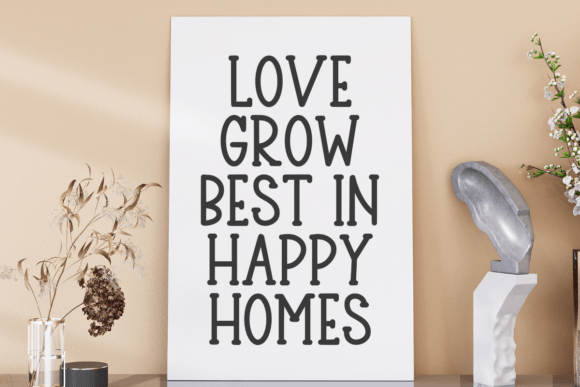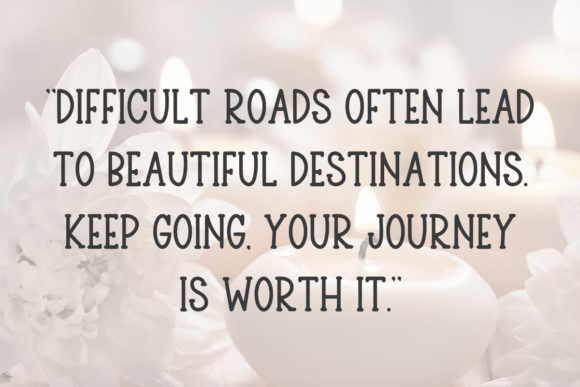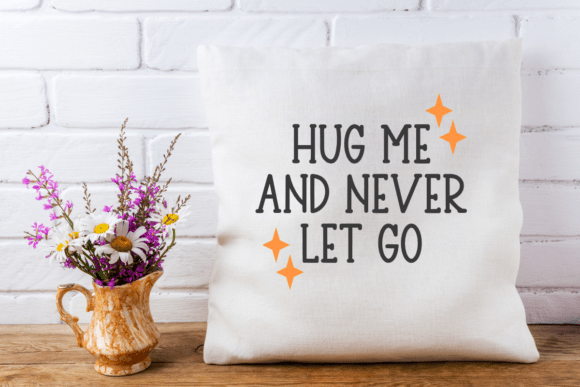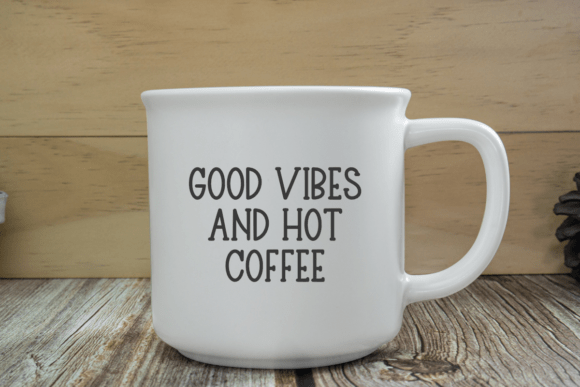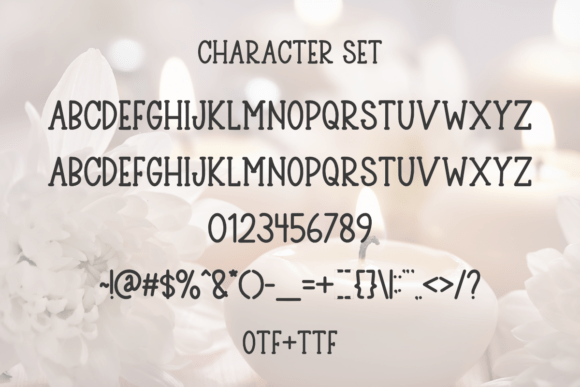
Introducing Design College: The Quirky and Cheerful Slab Serif Font
Are you tired of using the same old fonts in your designs? Look no further! Design College is a fresh and exciting slab serif font that’s bursting with energy and charm. This playful font is perfect for designers and crafters who want to add a touch of fun and whimsy to their work.
The Characteristics of Design College
Design College is a bold and eye-catching font that’s characterized by its playful proportions and chunky slab ends. The font’s unique design makes it perfect for use in a variety of applications, from storybooks and children’s games to posters and other marketing materials. The font’s slab serif design gives it a sturdy and dependable feel, while its playful proportions add a touch of whimsy and fun.
The Benefits of Using Design College
So why should you choose Design College for your next design project? Here are just a few benefits of using this fantastic font:
- Perfect for kid-friendly designs: Design College’s playful and cheerful design makes it perfect for use in designs aimed at children. Whether you’re creating a storybook, a children’s game, or a kids’ poster, this font is sure to delight.
- Bold and eye-catching: Design College is a bold and attention-grabbing font that’s sure to make your design stand out. Whether you’re creating a poster, a flyer, or a social media graphic, this font is sure to get noticed.
- Easy to read: Despite its playful design, Design College is a highly legible font that’s easy to read, even at small sizes. This makes it perfect for use in a variety of applications, from body text to headings.
- Versatile: Design College is a versatile font that can be used in a wide range of applications, from digital designs to print materials.
Using Design College in Your Designs
So how can you use Design College in your designs? Here are a few ideas to get you started:
- Storybooks and children’s books: Design College is perfect for use in storybooks and children’s books, where its playful and cheerful design can help bring the story to life.
- Children’s games and apps: Design College is also perfect for use in children’s games and apps, where its bold and eye-catching design can help engage young users.
- Posters and flyers: Design College is a great choice for posters and flyers, where its bold and attention-grabbing design can help grab the attention of potential customers.
- Social media graphics: Design College is also perfect for use in social media graphics, where its playful and cheerful design can help make your brand stand out.
Tips for Getting the Most Out of Design College
Here are a few tips for getting the most out of Design College:
- Experiment with different colors: Design College looks great in a wide range of colors, so don’t be afraid to experiment and find the perfect color scheme for your design.
- Use it with other fonts: Design College can be used with a wide range of other fonts, so feel free to get creative and experiment with different font combinations.
- Pay attention to font size: While Design College is highly legible, it’s still important to pay attention to font size and make sure your text is easy to read.
Design College is a quirky and cheerful slab serif font that’s perfect for designers and crafters who want to add a touch of fun and whimsy to their work. With its playful proportions and chunky slab ends, this font is sure to bring a smile to your face and make your designs stand out. Whether you’re creating a storybook, a children’s game, or a poster, Design College is a great choice. So why not give it a try and see what amazing designs you can create?